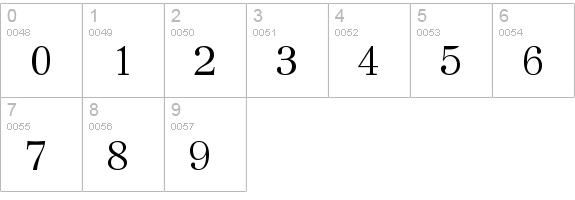
Else NPL Medium is a balanced, medium-weight variant in the Else typeface family \xE2\x80\x94 well suited to sub-headlines, navigation, and balanced editorial work.
Else NPL Medium is a versatile and elegant font that exudes modernity and sophistication. With its clean lines and balanced proportions, this typeface is perfect for a wide range of design projects, from branding to editorial design. The Medium weight strikes the perfect balance between presence and readability, making it ideal for headlines, subheadings, and body text alike. What sets Else NPL Medium apart is not just its design, but also its accessibility. This font is available for free download at FontsMarket.com, allowing designers and creatives to easily incorporate it into their projects without breaking the bank. Whether you're working on a personal or commercial project, Else NPL Medium is a reliable choice that offers both style and affordability. With its timeless appeal and practicality, Else NPL Medium is sure to become a staple in your font library. Download it today and elevate your designs with this sleek and versatile typeface.